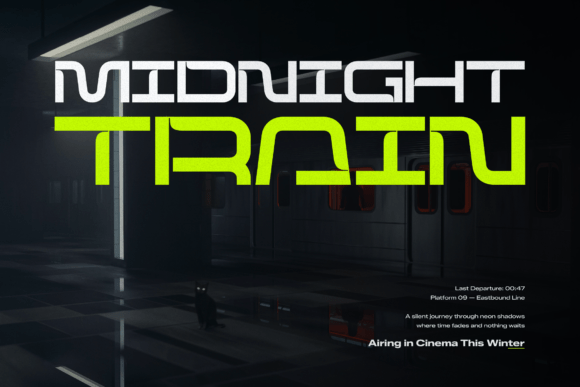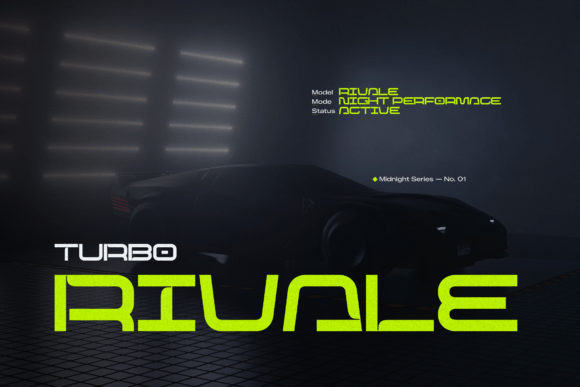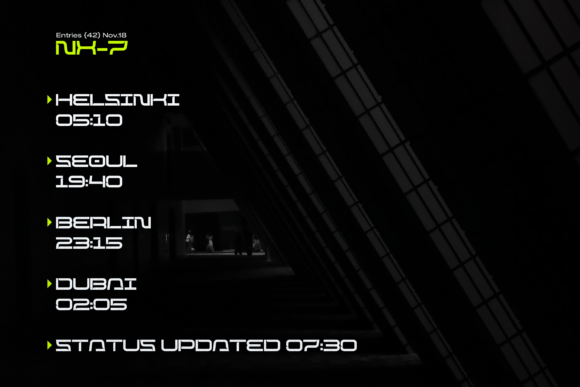
Introduction to Luroha Font
Imagine you’re in the midst of a high-stakes gaming tournament, and your team’s logo flashes across the screen in a burst of neon light. The crowd goes wild, and your team’s identity is cemented in the minds of fans everywhere. This is the kind of impact that the Luroha Font can bring to your brand, elevating it to the next level of sophistication and style.
As a designer, you’re constantly on the lookout for the perfect design resource to take your creative project to the next level. With its ultra-wide, geometric letterforms and technical cut-outs, the Luroha Font is the perfect choice for independent e-sports teams, tech startups, and gaming interfaces. Whether you’re working with a transparent background or a bold, high-contrast design, this font is sure to make a statement.
Key Features of Luroha Font
- High-quality, unique font design suitable for creative projects
- Size: Includes multiple font sizes and weights for versatility
- Perfect for graphic designers, digital artists, and writers seeking a distinctive font for their work
Honest Review: Luroha Font
I recently stumbled upon the Luroha Font, a free design resource that caught my eye. As a designer, I appreciate high-quality fonts that can elevate a creative project to the next level.
Here’s what works well: ✨ The Luroha Font offers a wide range of styles, from casual to elegant, making it perfect for various design needs. The transparent background feature allows for seamless integration with any design element, giving me more creative freedom.
- Transparent background feature
- Wide range of styles
However, there are some limitations: ⚠️ The font file size is relatively large, which might be a concern for designers working with limited storage space. Additionally, the font’s versatility is somewhat limited when it comes to more complex design projects.
Overall, the Luroha Font is a solid addition to any designer’s toolkit. While it may not be perfect, its strengths make it a valuable resource for many creative projects. With a little experimentation, you can unlock its full potential and achieve stunning results.
How to Use Luroha Font
Getting the Most Out of Luroha Font
Here are some tips for getting the most out of the Luroha Font:
- Experiment with different font sizes and styles to achieve the desired effect.
- Combine the Luroha Font with other design elements, such as graphics and images, to create a visually appealing design.
- Use the transparent background to create a sense of depth and layering in your design.
The Luroha Font is commonly used in:
- Marketing materials, such as brochures and flyers.
- Branding materials, such as logos and business cards.
- Web design, including website headers and footers.
Alternatives to Luroha Font
Montserrat is more geometric and modern compared to Luroha Font, making it suitable for contemporary design projects.
Great Vibes is a beautiful script font with a high-quality design that’s perfect for creative projects. It’s a great choice for designers who want to add a touch of elegance to their design resource. Great Vibes is ideal for use in logos, typography, and other design elements.
Great Vibes is more elegant and sophisticated compared to Luroha Font, making it suitable for projects that require a touch of luxury.
3. Playfair Display Font
Playfair Display is an elegant and luxurious serif font that’s perfect for high-end design projects. It features a beautiful design with a transparent background, making it ideal for creative projects that require a touch of sophistication. Download Playfair Display for free to enhance your design resource.